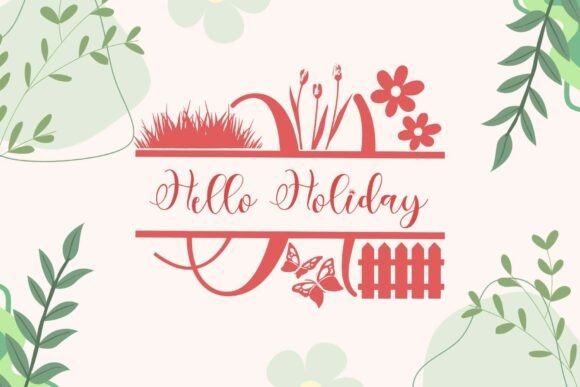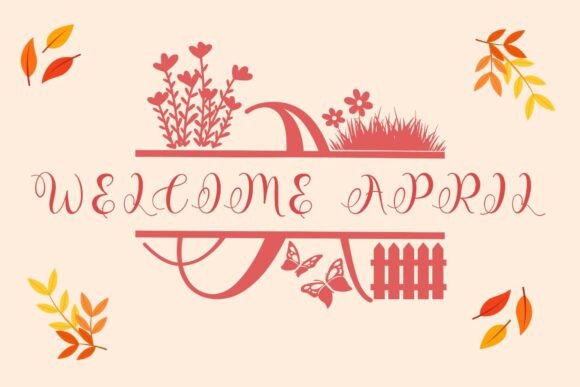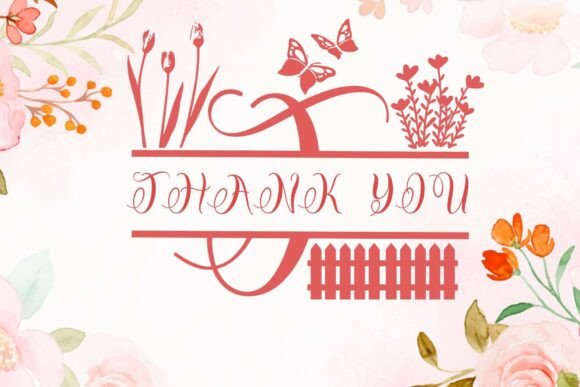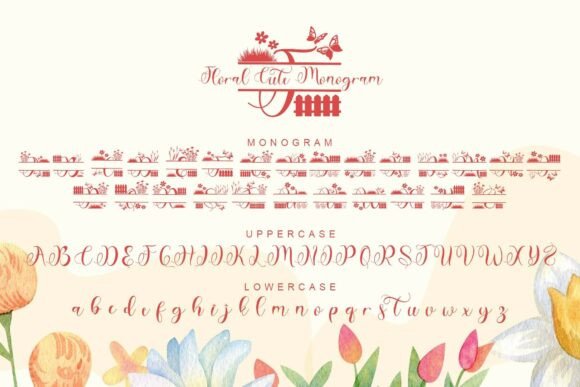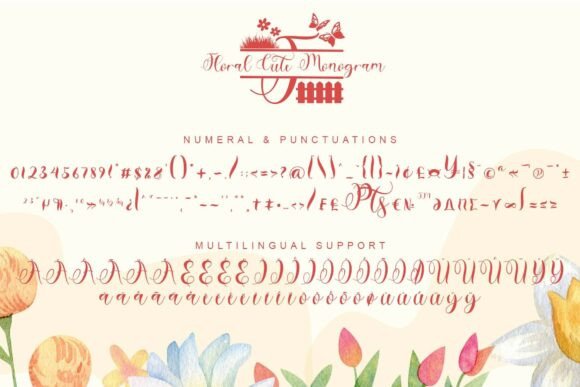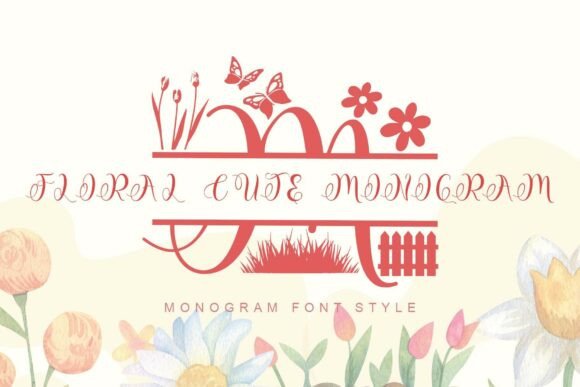
Introducing Floral Cute Monogram Font: Elevate Your Designs with Whimsical Elegance
Are you a designer or crafter looking for a unique and charming font to add a touch of elegance to your projects? Look no further than the Floral Cute Monogram Font. This beautiful script font is designed specifically for monogram projects and is sure to bring a garden-inspired touch to your designs.
What is Floral Cute Monogram Font?
Floral Cute Monogram Font is a charming and whimsical script font that features delicate swashes and floral embellishments. Its elegant curls and nature-themed flourishes make it an enchanting choice for any design that needs a soft, decorative flair. This font is perfect for designers and crafters who want to add a touch of whimsy and elegance to their projects.
Perfect for Monogram Projects
Floral Cute Monogram Font is designed specifically for monogram projects, making it perfect for a variety of applications, including:
- Stationery and greeting cards
- Spring-themed crafts and DIY projects
- Custom gifts and personalized items
With its delicate swashes and floral embellishments, this font is sure to add a touch of elegance and sophistication to any monogram project.
Key Features of Floral Cute Monogram Font
So, what makes Floral Cute Monogram Font so special? Here are just a few of its key features:
- Delicate swashes and floral embellishments
- Elegant curls and nature-themed flourishes
- Whimsical and charming design
- Perfect for monogram projects and spring-themed designs
- Easily customizable for a variety of applications
How to Use Floral Cute Monogram Font
- Monogrammed stationery and greeting cards
- Custom wedding invitations and stationery
- Spring-themed crafts and DIY projects
- Personalized gifts and custom items
Tips and Inspiration for Using Floral Cute Monogram Font
Need some inspiration for using Floral Cute Monogram Font? Here are a few tips and ideas to get you started:
- Pair Floral Cute Monogram Font with a simple background or texture to really make your design pop.
- Use Floral Cute Monogram Font to create custom monogrammed stationery or greeting cards for special occasions.
- Experiment with different colors and combinations to find the perfect look for your design.
- Use Floral Cute Monogram Font to add a touch of elegance and sophistication to your spring-themed crafts and DIY projects.
Floral Cute Monogram Font is a charming and whimsical script font that is perfect for designers and crafters looking to add a touch of elegance and sophistication to their projects. With its delicate swashes and floral embellishments, this font is sure to bring a garden-inspired touch to everything from stationery and wedding invites to spring-themed crafts and custom gifts. So why wait? Download Floral Cute Monogram Font today and start creating beautiful, one-of-a-kind designs.